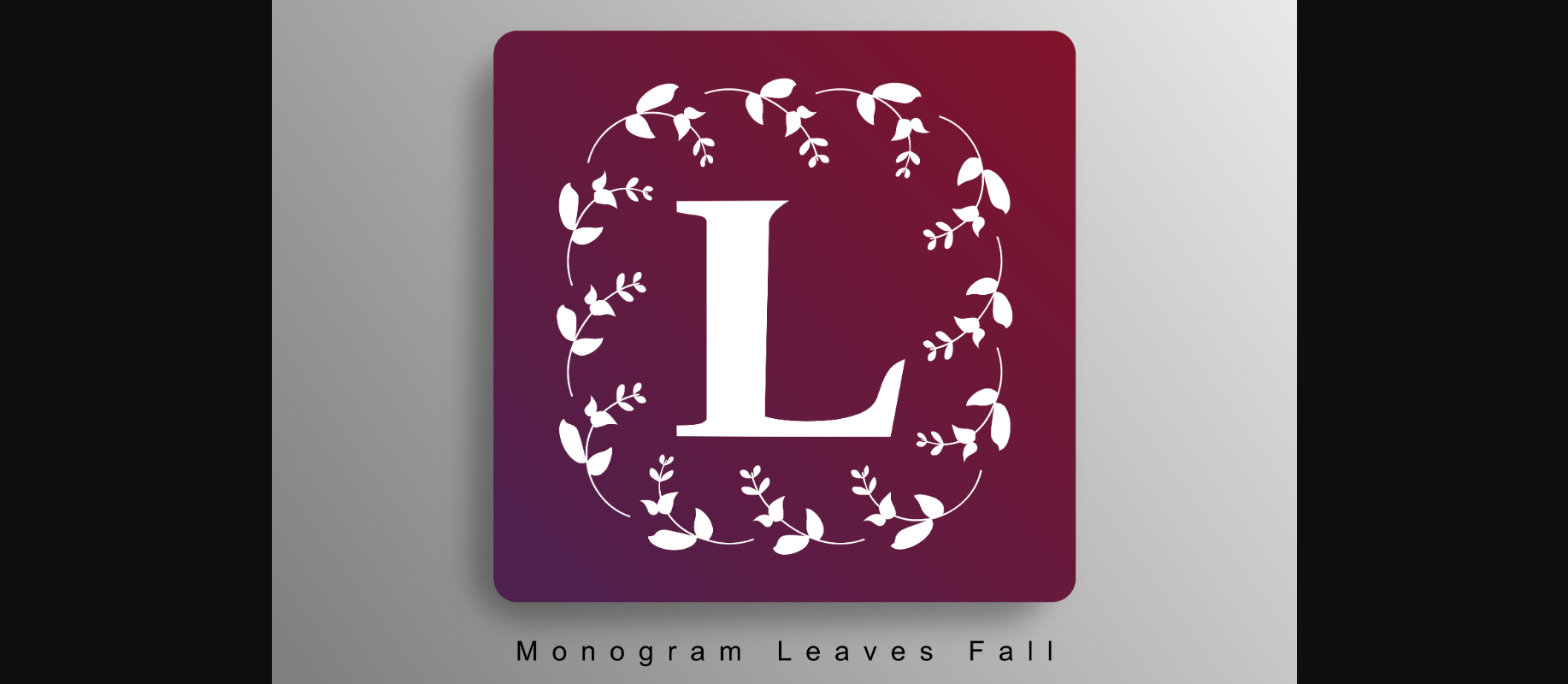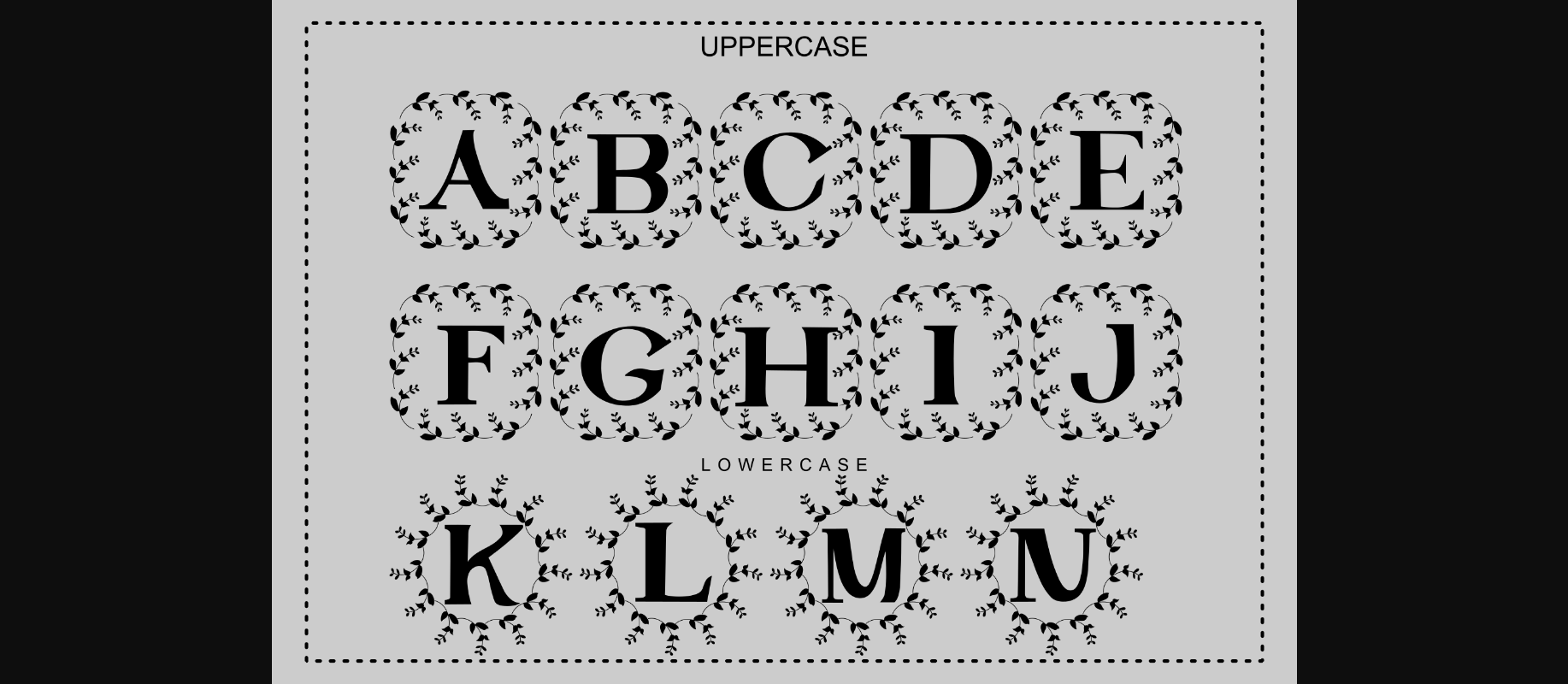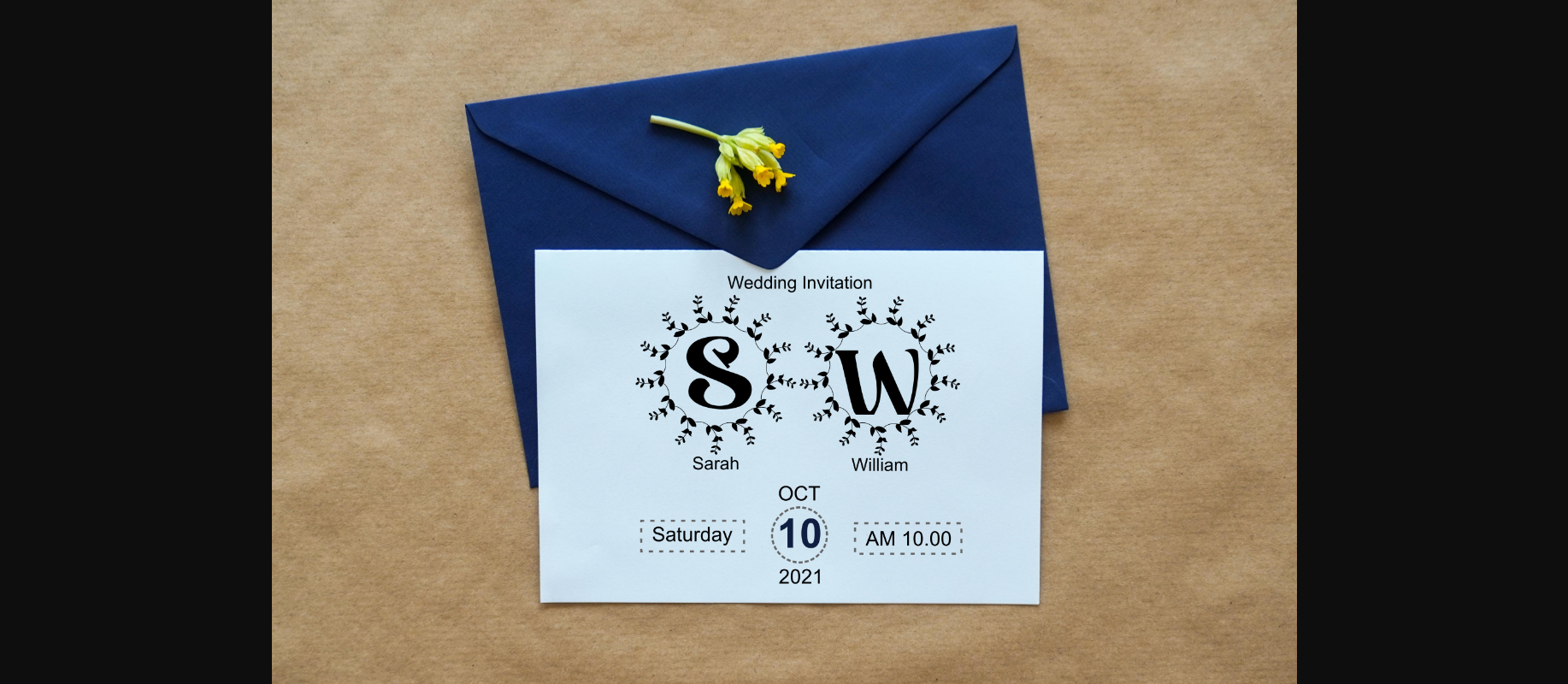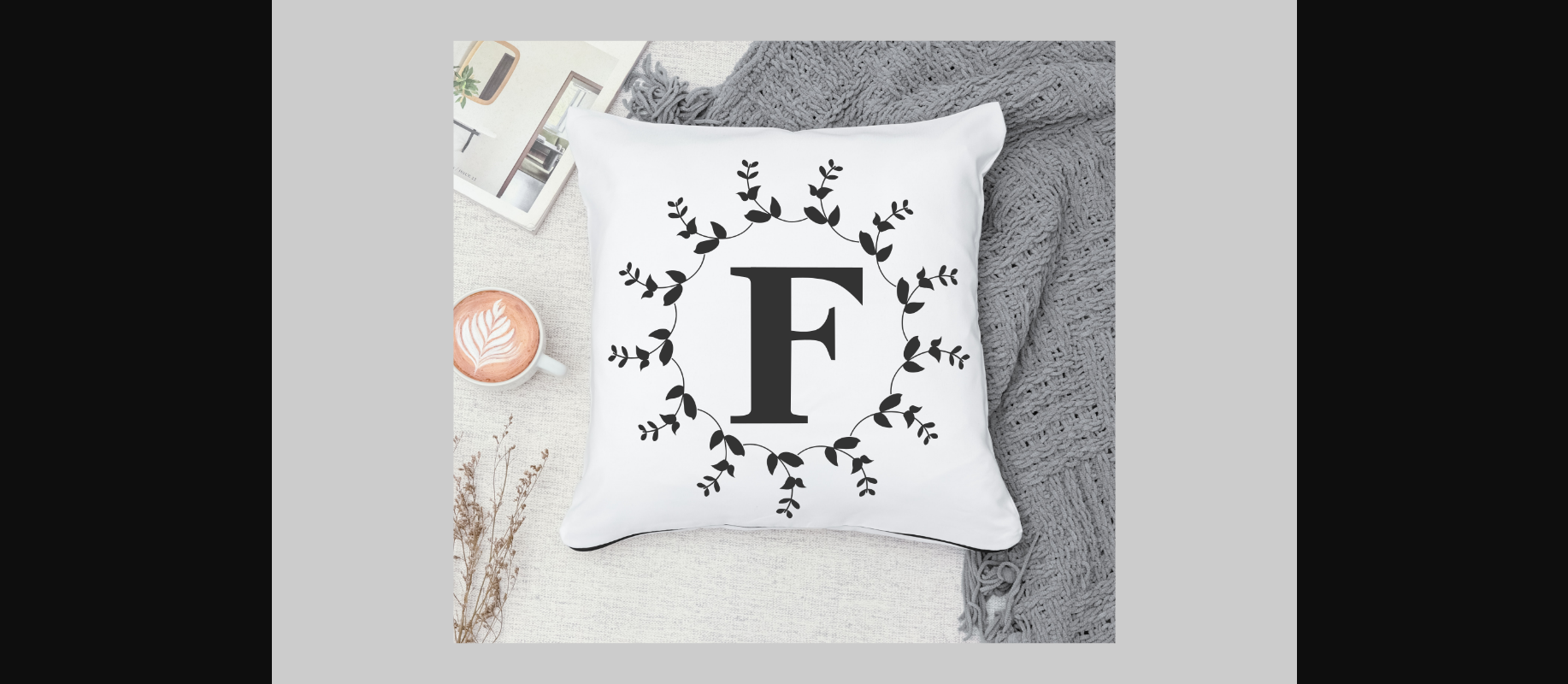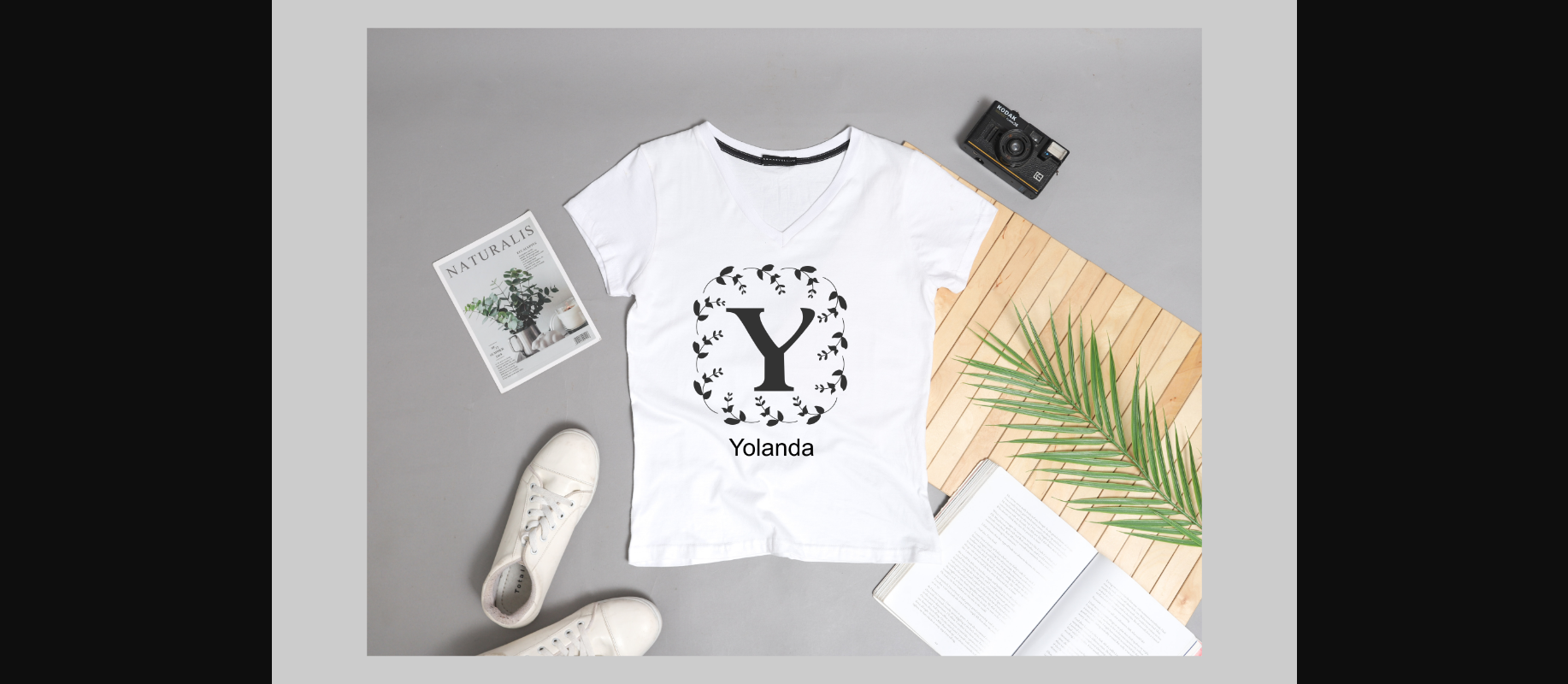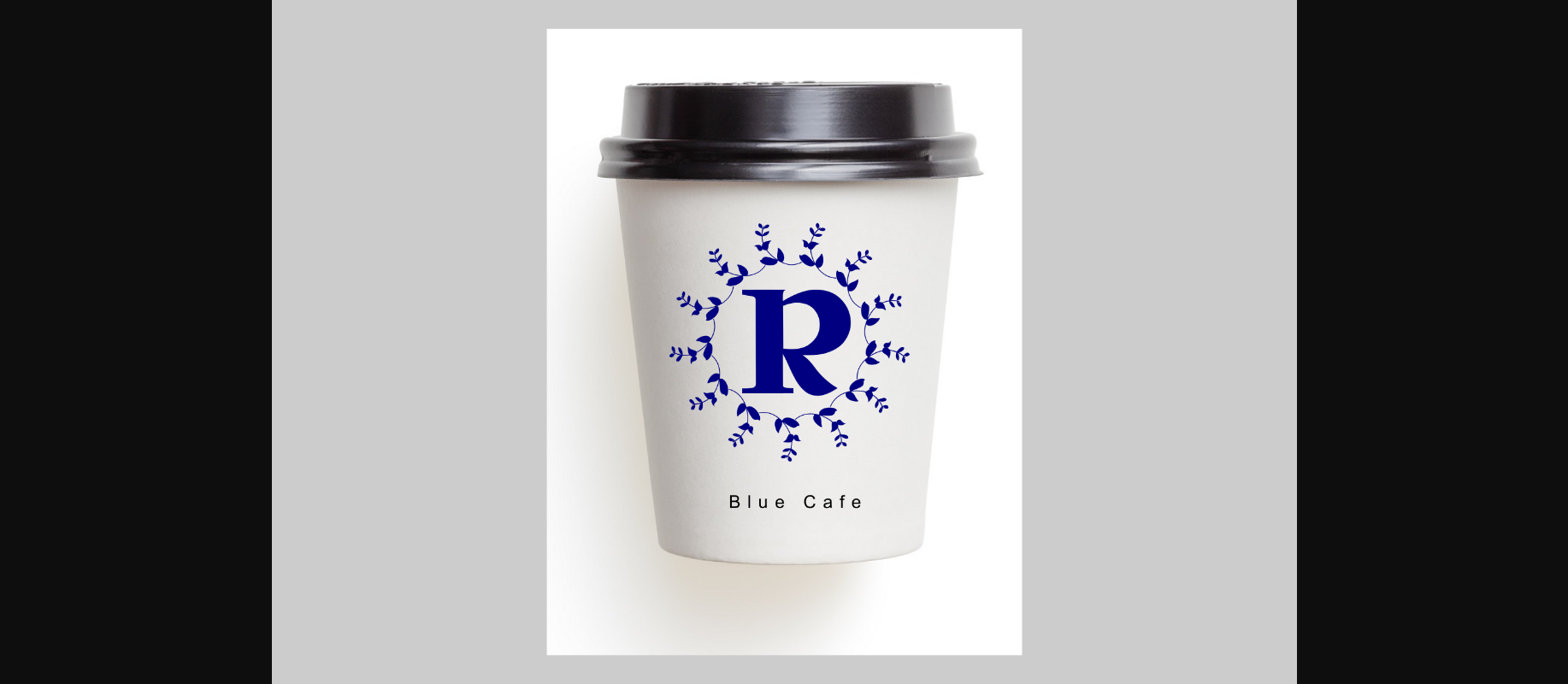
Monogram Leaves Fall Font
About Monogram Leaves Fall Font
Monogram Leaves Fall is a highly detailed and beautiful decorative font. Add this lovely-looking font to each of your love letters, wedding invitations, or favorite design ideas, and you will be astounded by the outcome.